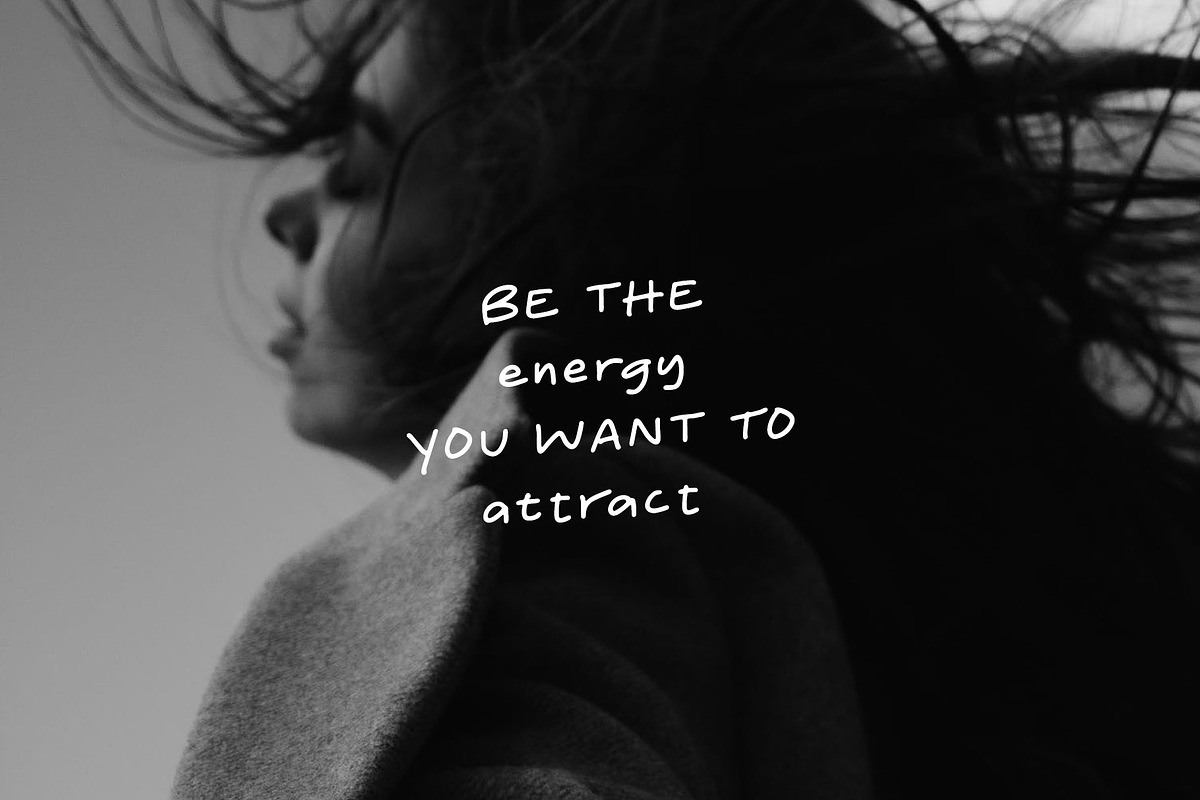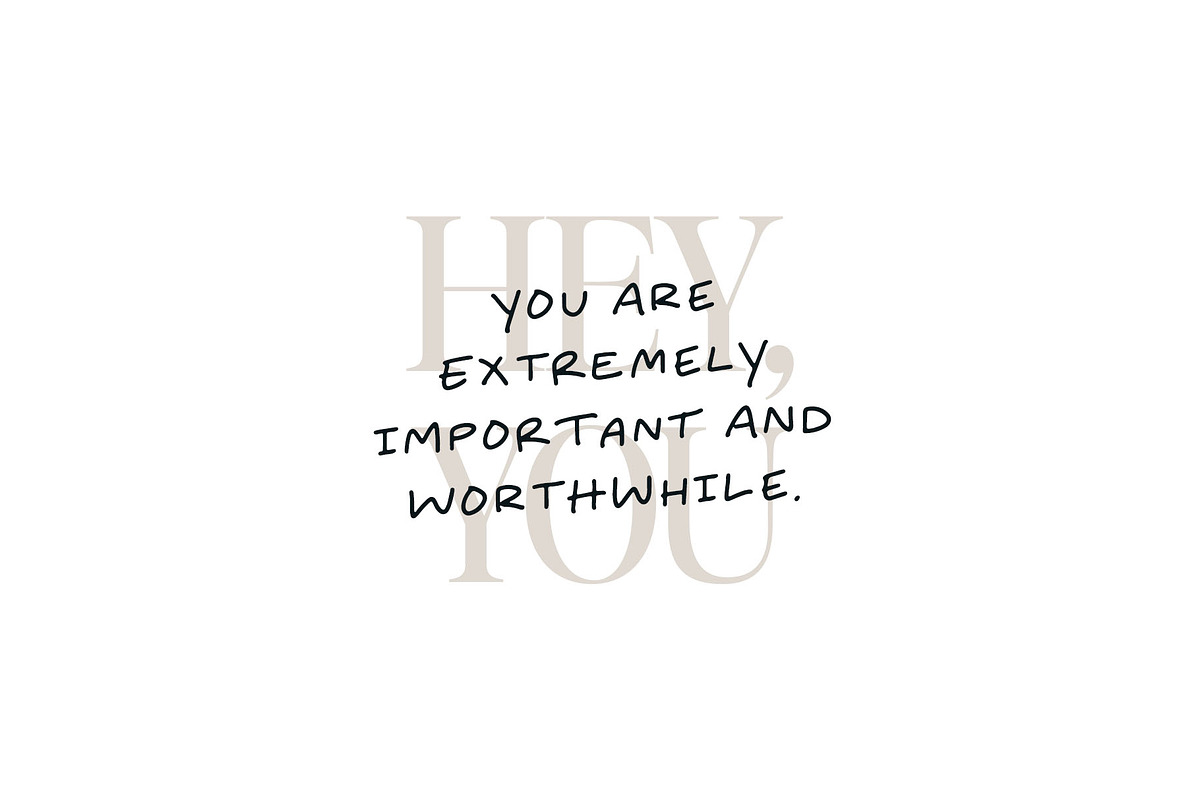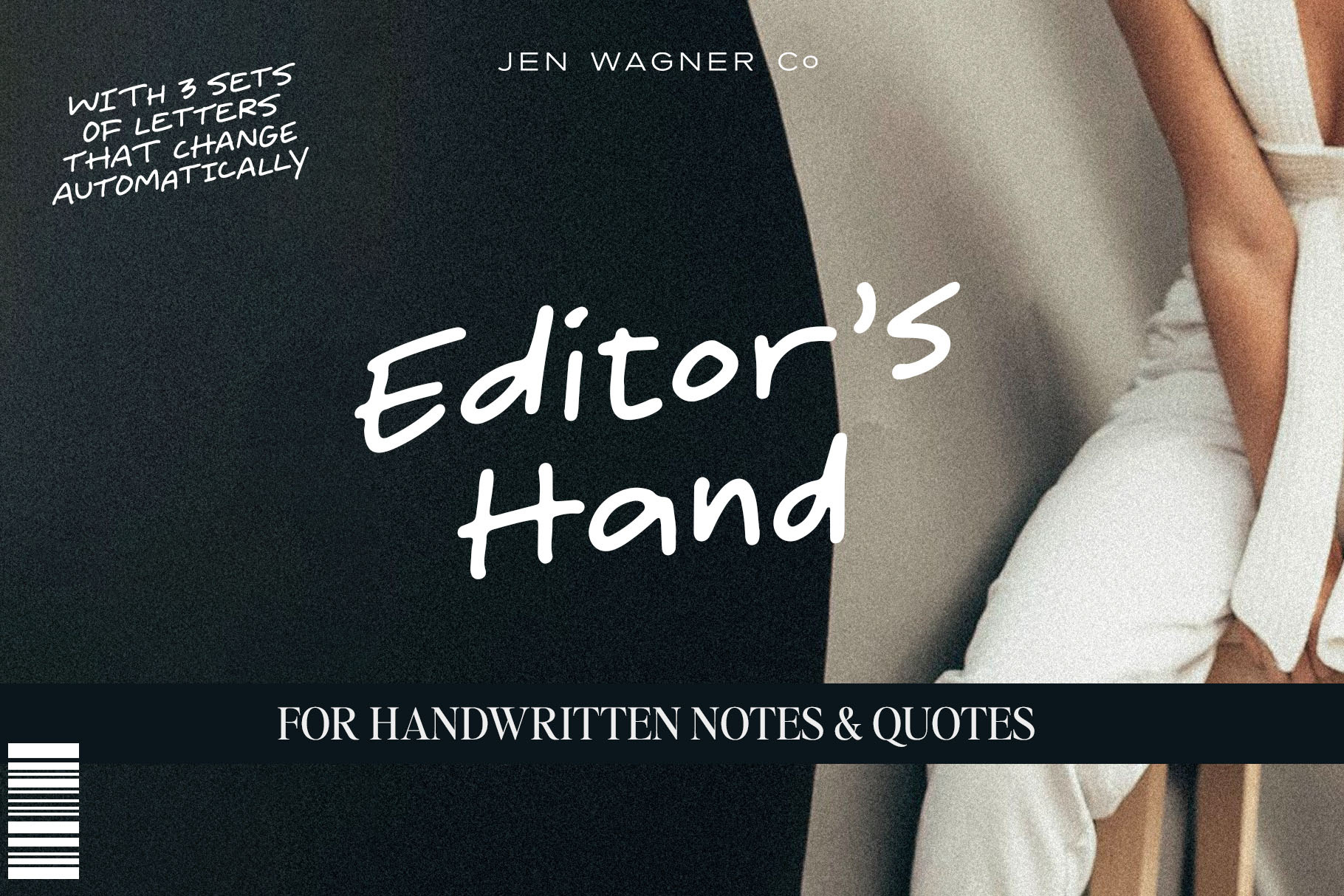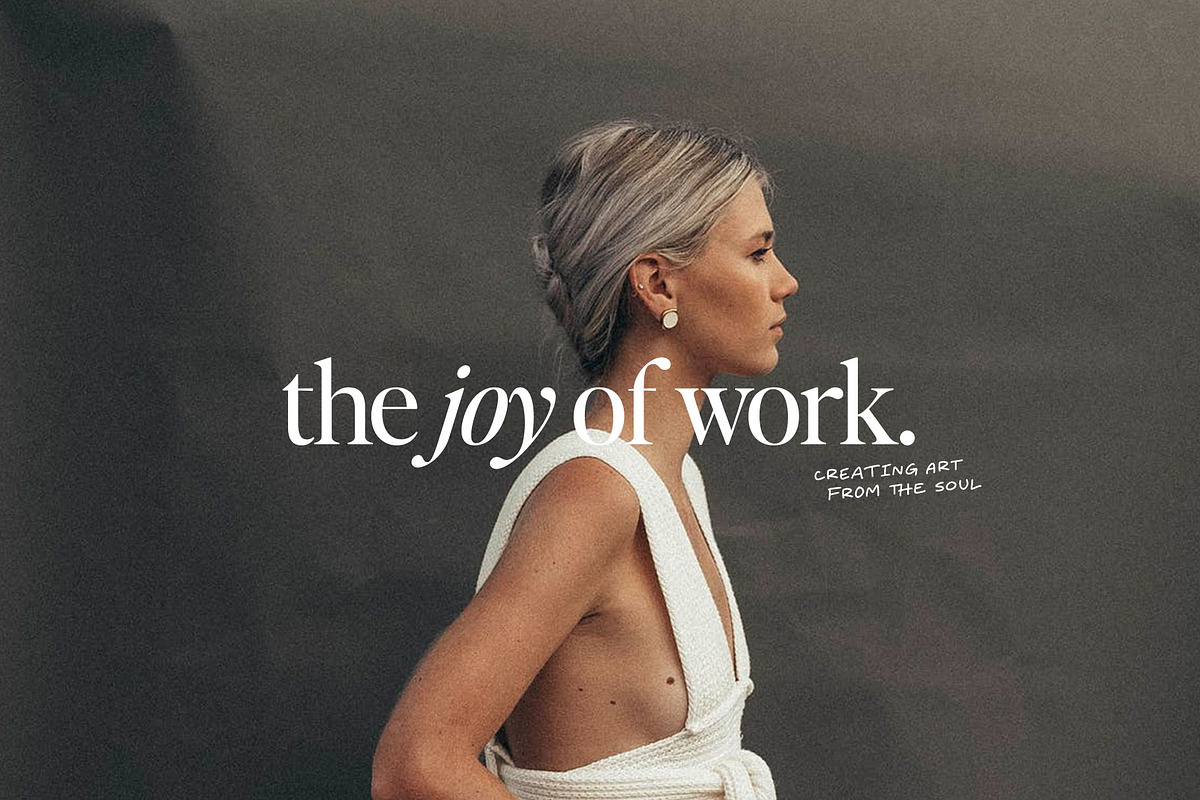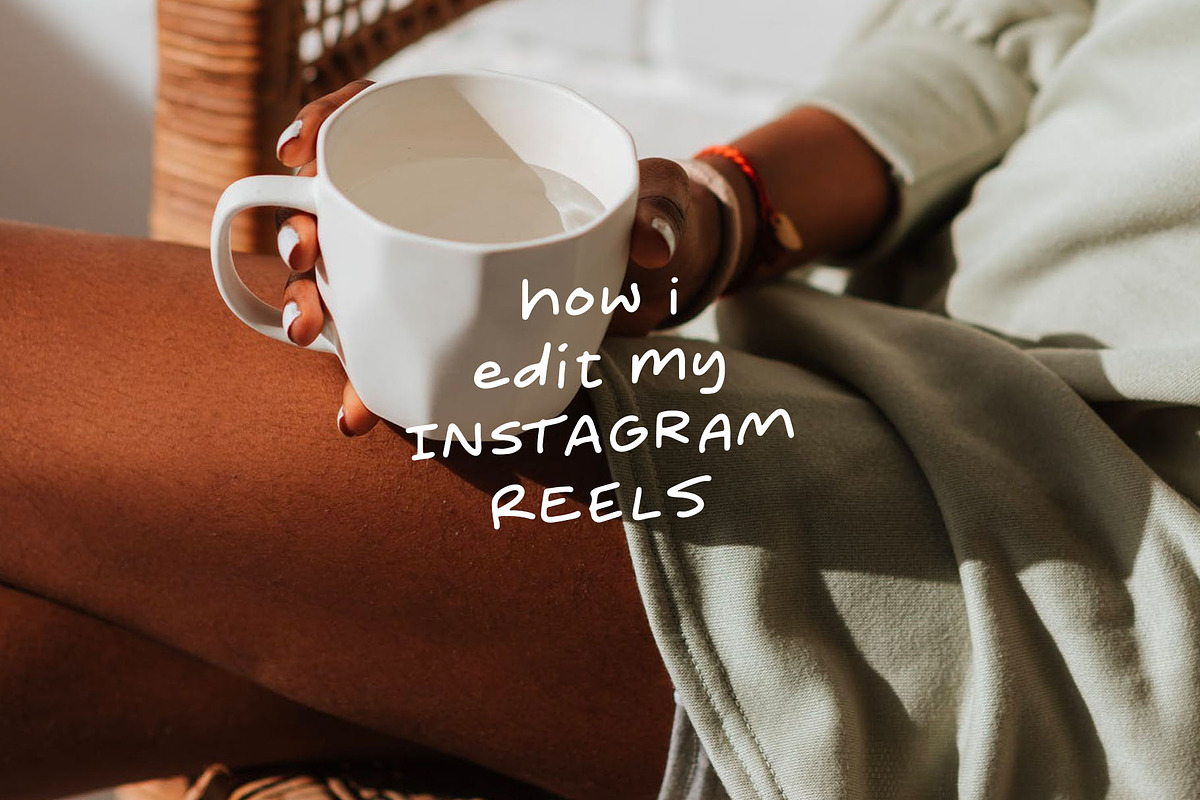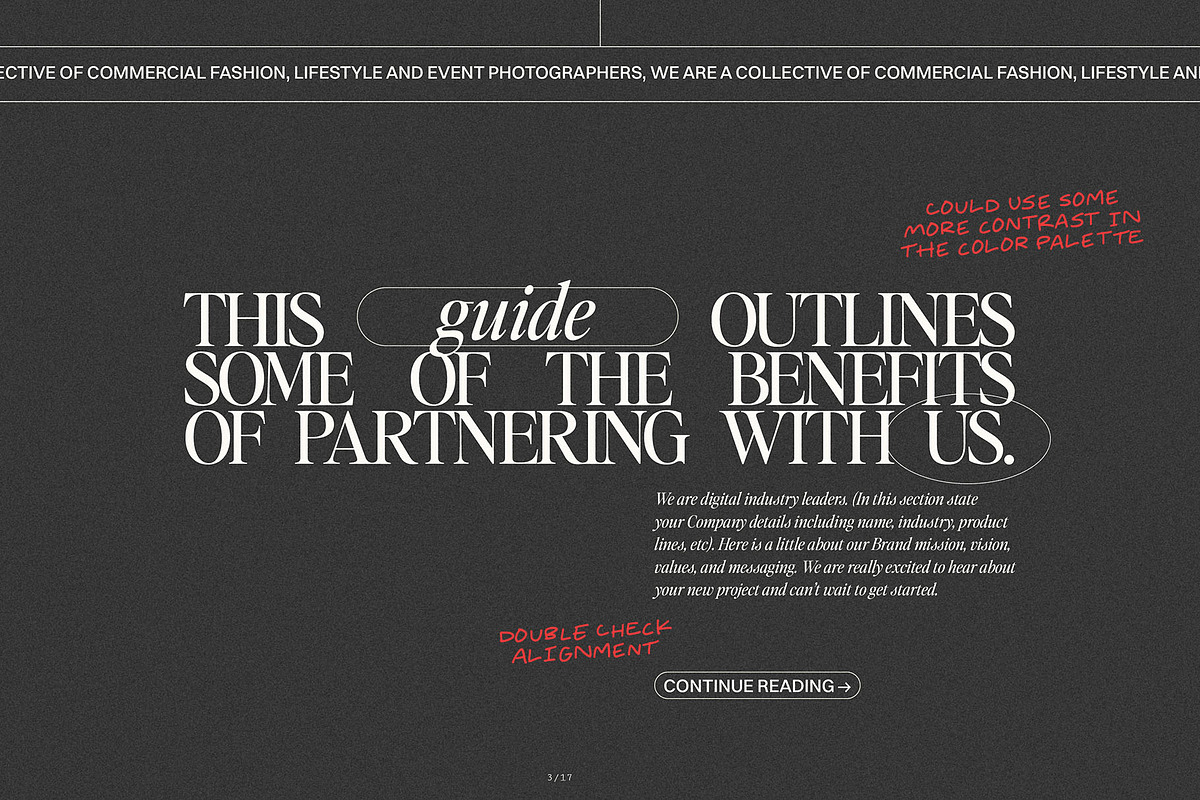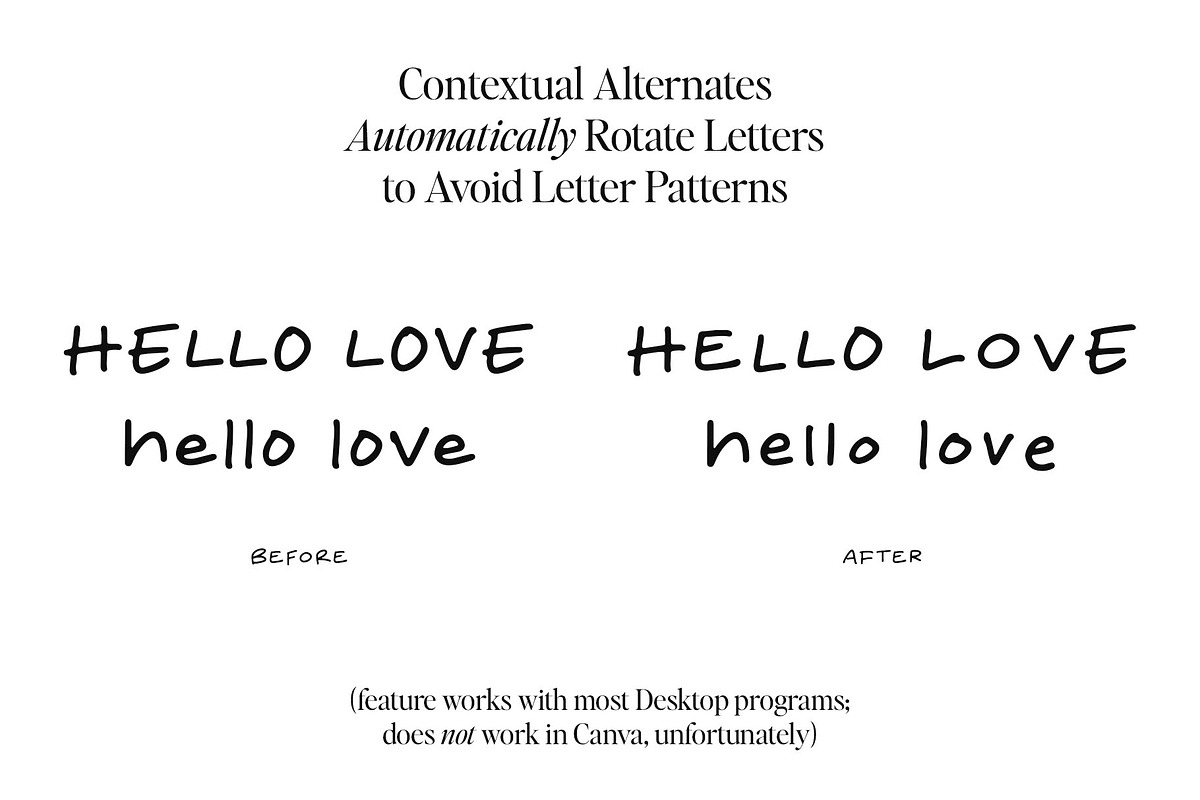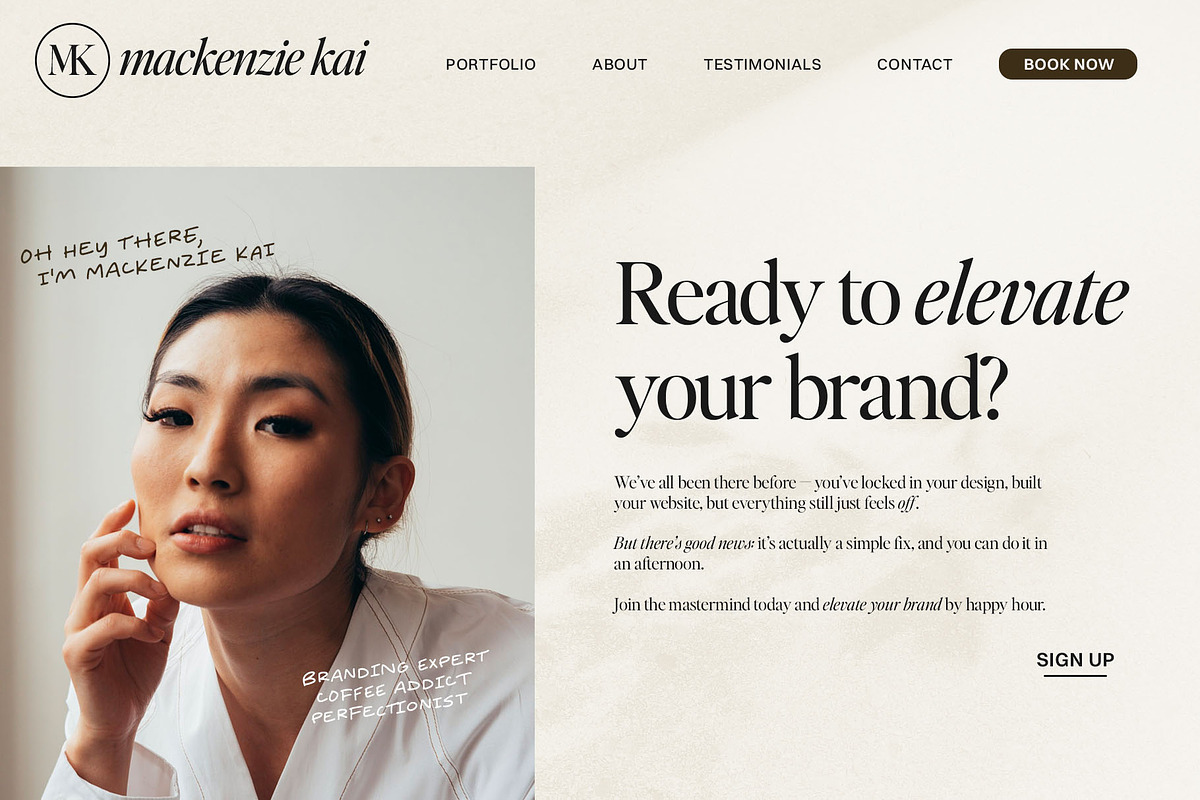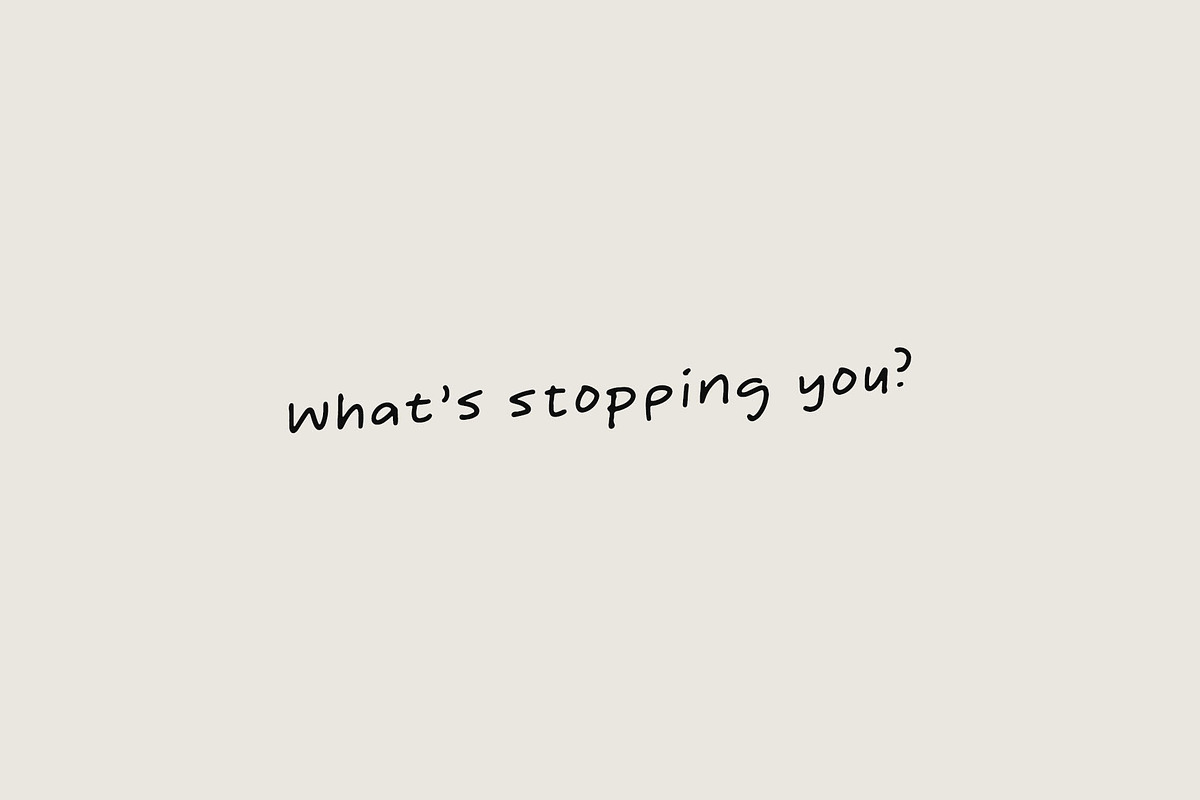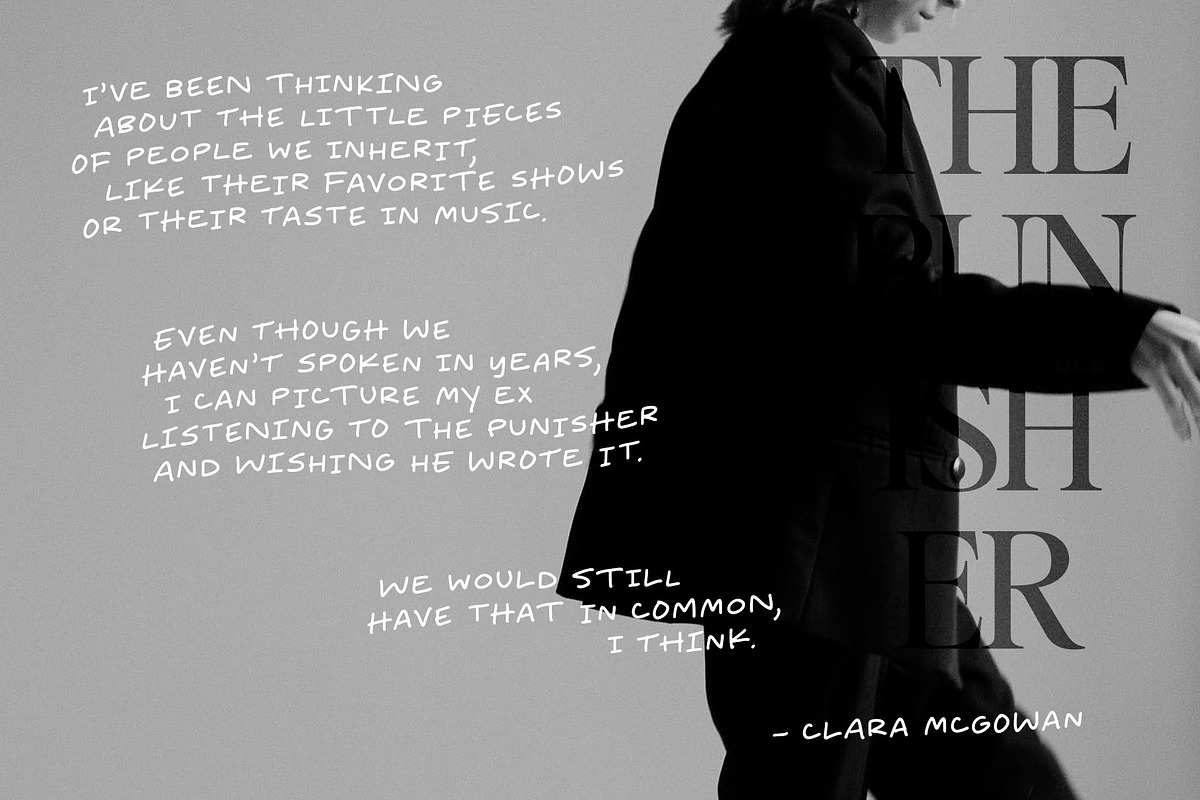
Editor's Hand: Notes & Quotes Font
- Uppercase letters, numbers, & extended punctuation
- 3 sets of letters and 2 sets of numbers that automatically switch to avoid letter patterns (feature works in most desktop programs, including Adobe and Microsoft, but does not work in Canva)
- Non-English support for the international designer
Say hello to Editor's Hand, perfect for creating handwritten notes, quotes, logos, or just adding a hand-written touch to any project!
This font was literally designed to accompany "Editor's Note" (linked above) to create the feel of an actual magazine editor's notes on a design proof.
While other handwritten fonts have some visible letter patterns, Editor's Hand comes with three sets of letters that automatically alternate, so you don't have to worry about swapping them out yourself!